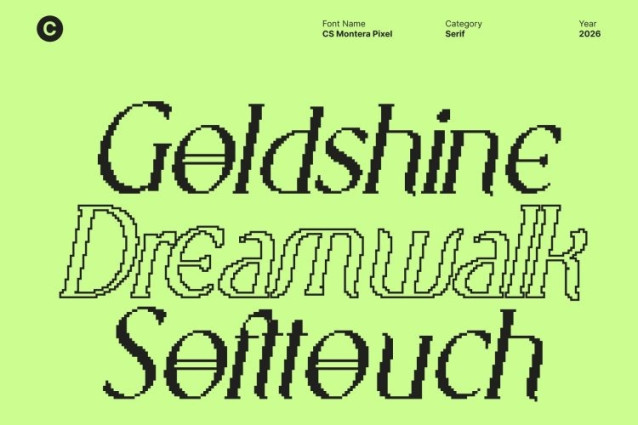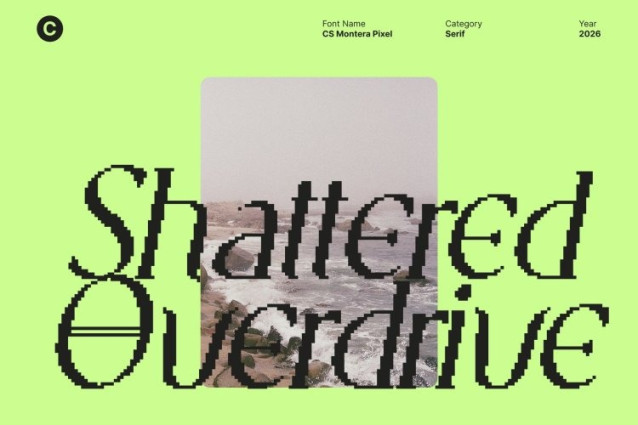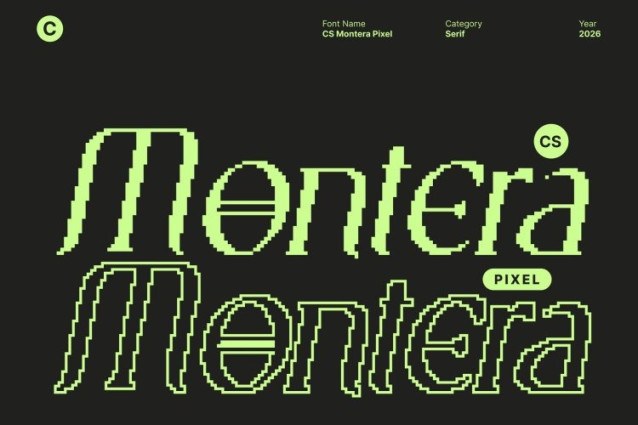
CS Montera Pixel Font
CS Montera Pixel Font This transforms classical Greek-inspired letterforms into a pixel-perfect display font. Its bold, blocky serifs retain the grandeur of ancient inscriptions, while the pixelated structure gives it a contemporary, digital-ready aesthetic. The combination ensures clarity, impact, and readability across screens, posters, and modern applications.
Classical Inspiration with Modern Digital Flair
The font preserves the strength, balance, and sophistication of traditional Greek letterforms while introducing sharp, pixel-defined edges. Each character bridges heritage and technology, making it perfect for projects that want to convey authority, culture, and a subtle retro-digital charm simultaneously.
Versatile for Modern and Historical Projects
Ideal for book covers, editorial layouts, luxury branding, gaming interfaces, or digital posters, adapts seamlessly from classic to contemporary contexts. Its pixel treatment adds a modern twist to timeless elegance, making typography feel both monumental and approachable.
A Bold Statement of Cultural Depth and Digital Style
This font combines the majesty of Greek design with the clarity of pixel artistry. It’s perfect for designers seeking a typeface that communicates sophistication, historical depth, and eye-catching digital energy, creating an enduring and visually striking presence.